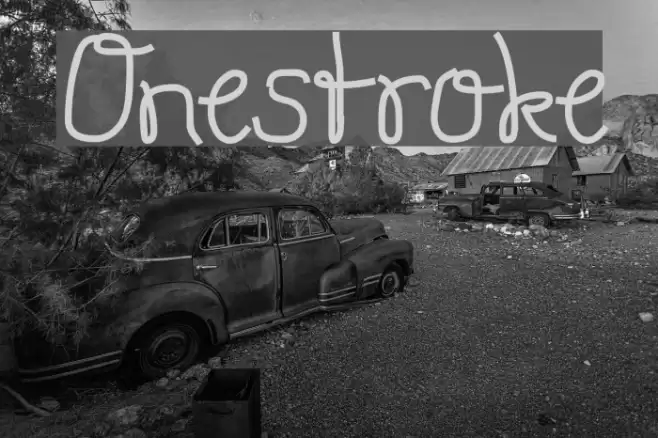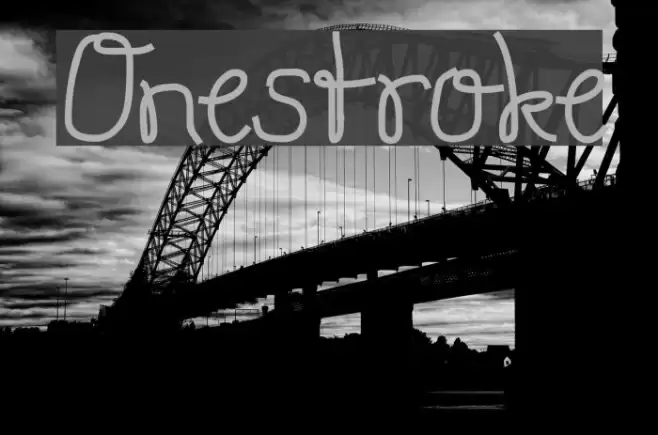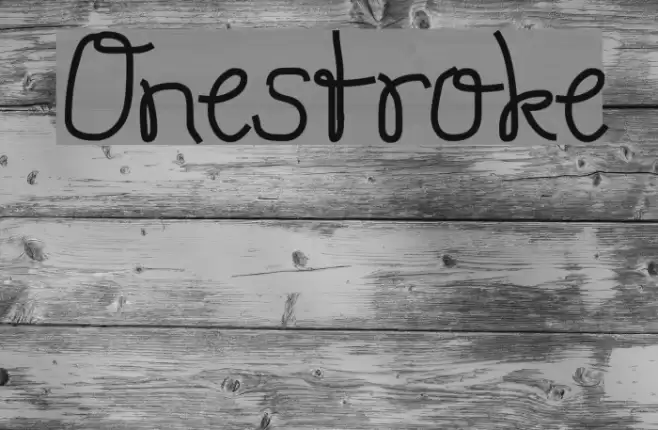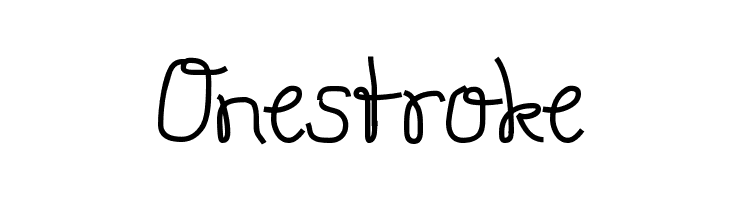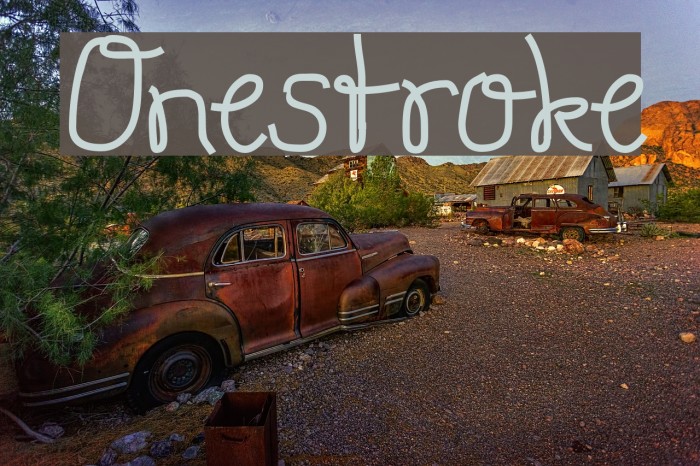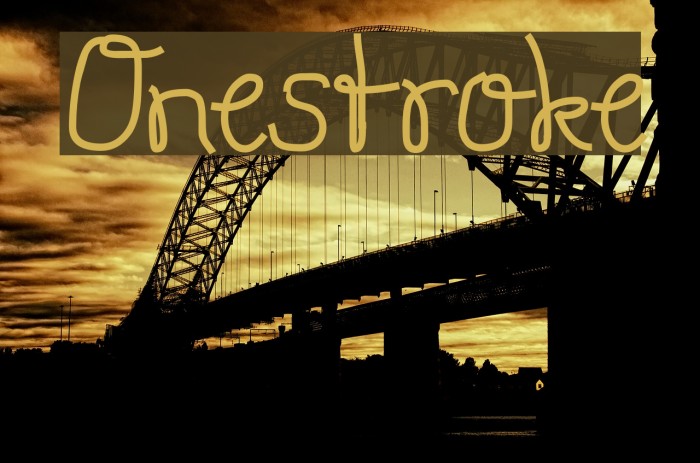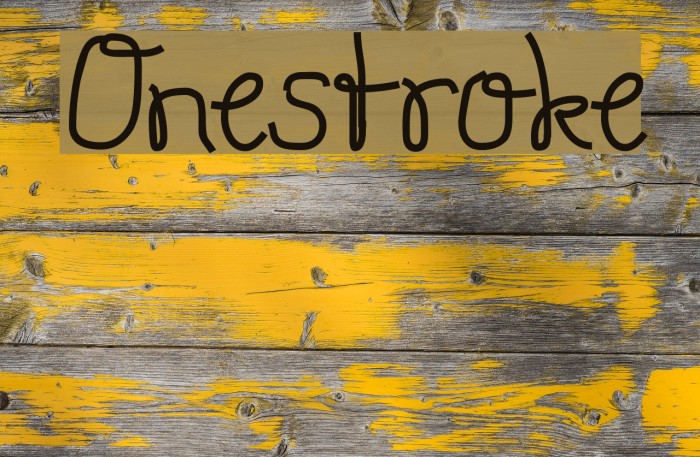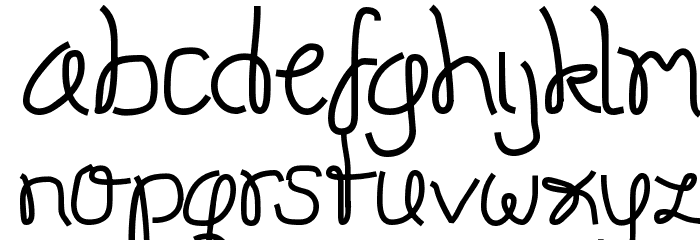
Onestroke Font
Onestroke Description
This font features a unique, continuous stroke style that gives it a fluid and dynamic appearance. The characters are crafted with a single, unbroken line, creating a sense of movement and cohesion. The uppercase letters are bold and prominent, while the lowercase letters maintain a consistent flow, enhancing readability. The numbers and special characters follow the same design principle, ensuring uniformity across all elements. This font's distinctive style makes it stand out, offering a modern yet artistic touch.
A fluid, continuous stroke font with a modern, artistic flair from Uncategorized fonts.
- Proposed Projects: Ideal for creative projects such as logo design, branding, and artistic posters. It can also be used in digital art and modern advertising campaigns to add a unique touch.
- Use Case: Logos, Headlines, Artistic projects